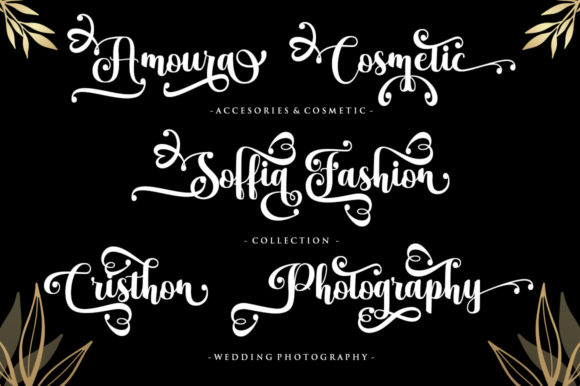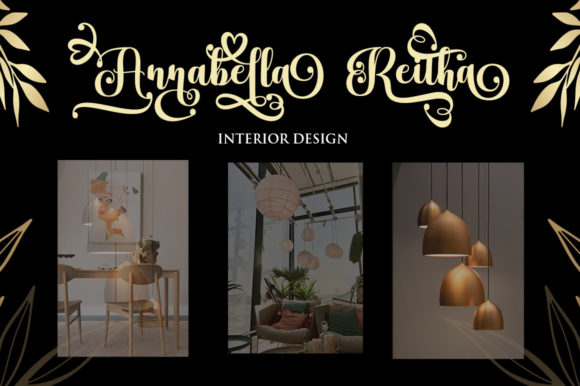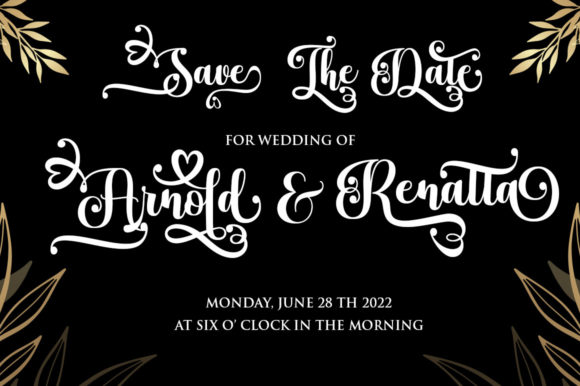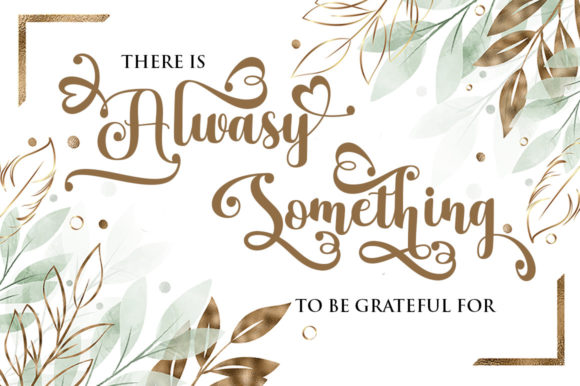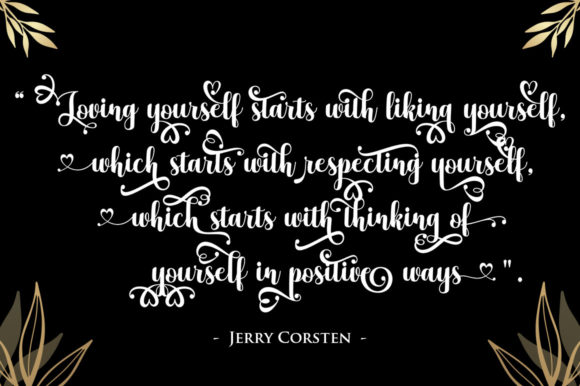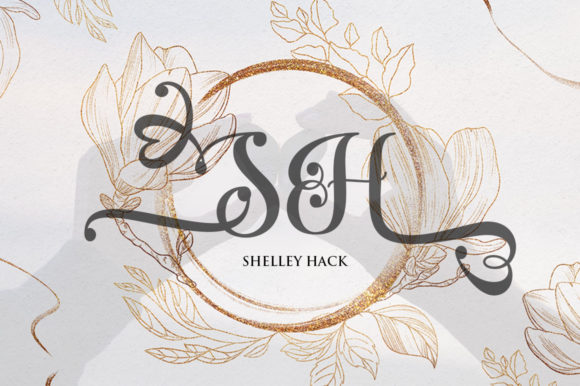
Introduction to Maleyenda Script Font
Maleyenda is a calligraphic script font featuring beautiful alternate characters and copper calligraphy, all mixed in a hand-lettering style.
This typeface is designed to convey an elegant message Maleyenda is attractive because it is subtle, clean, feminine, sensual, glamorous, simple, and easy to read.